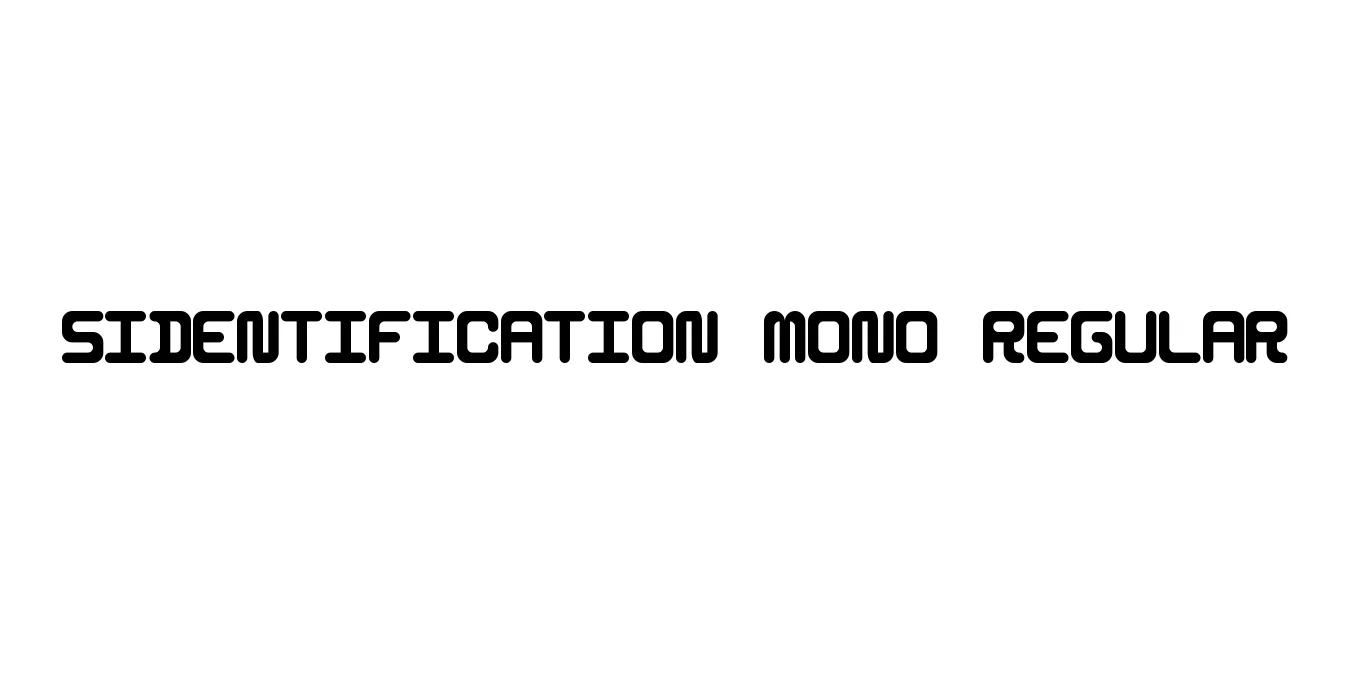
5Identification Mono Regular
Designed by 538Lyons
5Identification Mono Regular is a specialized monospaced typeface meticulously crafted to replicate the aesthetic of official identification documents and machine-readable zones (MRZ). Taking heavy inspiration from the OCR-B standard, this font prioritizes clarity and precision, ensuring that each character is easily distinguishable by both human eyes and optical scanners.
The design of this font emphasizes a clean, industrial grid where every glyph occupies an identical horizontal footprint. This makes 5Identification Mono Regular a perfect candidate for technical manuals, data-heavy reports, and creative projects that seek to evoke a sense of security, authority, or retro-computing nostalgia.
5Identification Mono Regular Best Uses
Excellent for programming environments and code editors due to fixed-width spacing.
Perfect for creating realistic mockups of passports, ID cards, and official documents.
Adds an authoritative, data-driven feel to instruction manuals and financial reports.